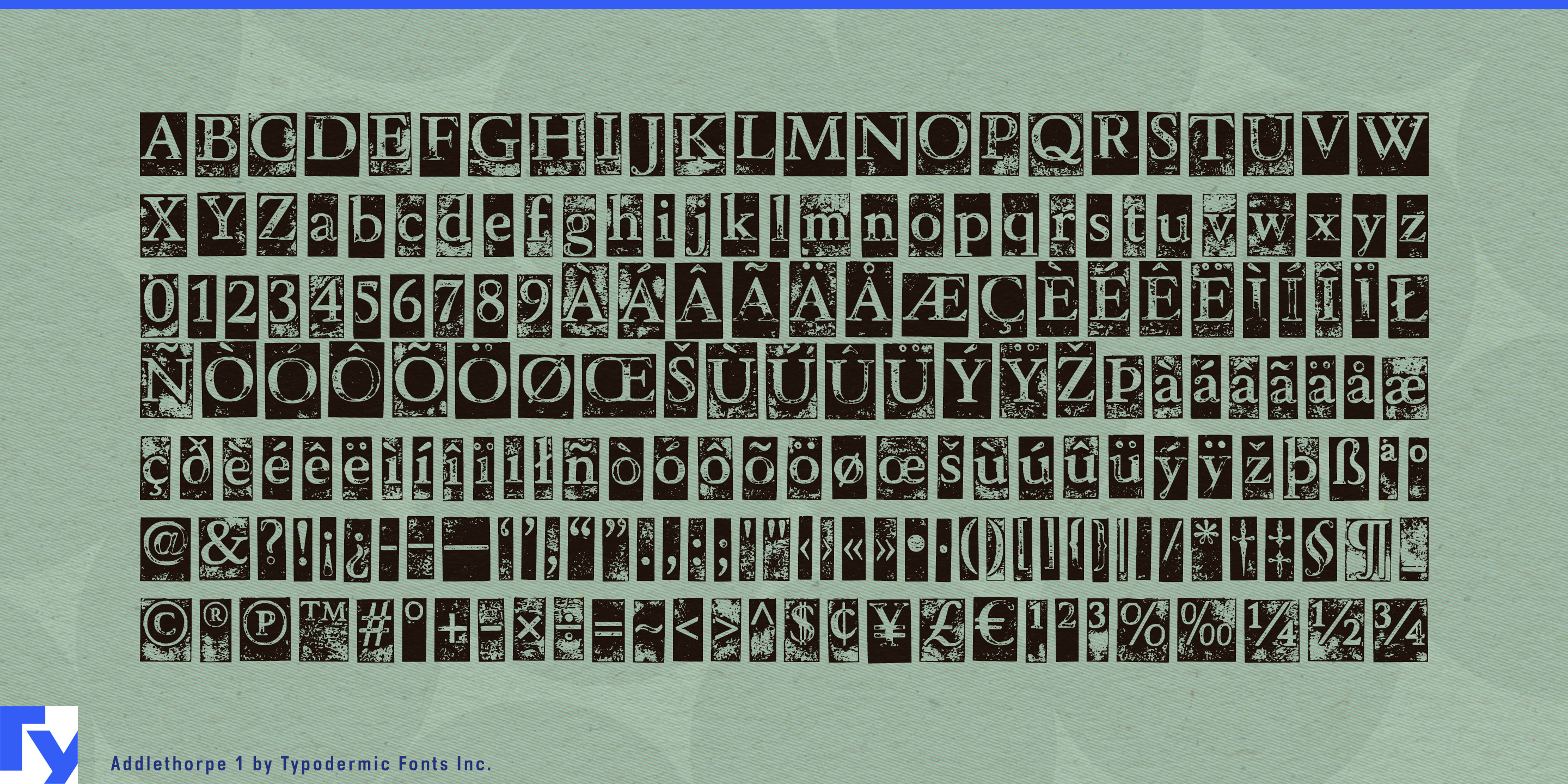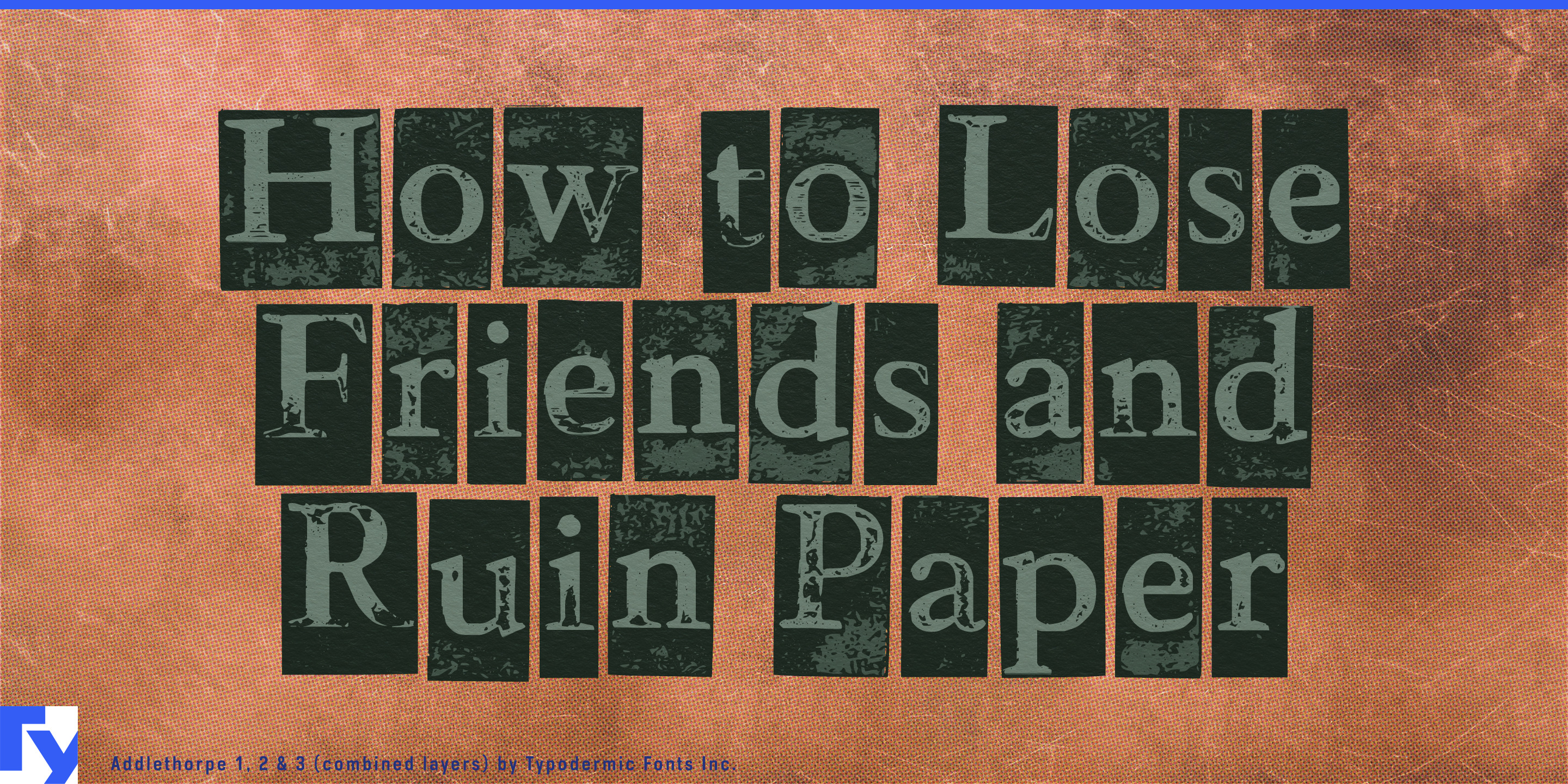
Addlethorpe
Most distressed typefaces imitate the mark left by printing. Addlethorpe goes one step backward and shows the thing that made the mark. Each character sits on its own battered metal block, turning a word into a row of physical components rather than a clean outline with texture applied afterward. Separate letter, fill and backing layers can be combined, recolored or offset independently, giving designers unusual control over how assembled, misregistered or dimensional the typography appears.
That makes Addlethorpe particularly useful for specialty printing and packaging production. Paper companies, label converters, foil and embossing houses, ink manufacturers and print-finishing firms can use it on print-fair booth walls, sample-book covers, substrate launches, swatch kits, factory-tour graphics and packaging-award displays. Different layers can carry separate brand or process colors, allowing the construction of the lettering to remain visible rather than disappearing beneath a single distressed surface.
The layered structure also opens possibilities for motion graphics. Blocks, fills and printed faces can separate, shift and reassemble across trade-show screens, launch films and process demonstrations, treating the typography as a set of components rather than a static effect.
Circular building materials provide a contemporary extension. Architectural salvage companies, reclaimed-brick suppliers, material banks and reuse marketplaces deal with components that have previous lives, irregular surfaces and individual histories. Addlethorpe’s letters behave much the same way visually: a word looks assembled from separate worn pieces rather than manufactured as one immaculate object. Material-library walls, salvage-depot graphics, reclaimed-component catalogs and reuse-pavilion headings can make that idea visible without falling back on generic recycling imagery.
Modular interior systems offer another related role. Acoustic panels, demountable partitions, modular shelving and prefabricated interiors are built from repeated units that combine into larger structures. Addlethorpe can handle product-family names, showroom graphics, configuration displays and architecture-fair headings where the individual blocks in the typography echo the modular logic of the product itself.
Printing history remains a literal and useful territory. Typography exhibitions, publishing anniversaries, book-arts programs, printing museums and documentaries about mechanical composition can use Addlethorpe when the physicality of movable type needs to be visible rather than merely implied by an old-style serif.
Addlethorpe works best where the idea of components matters: printing processes, modular systems, reclaimed materials, production environments and exhibitions about how things are made. Instead of showing only the finished impression, it exposes the pieces underneath.